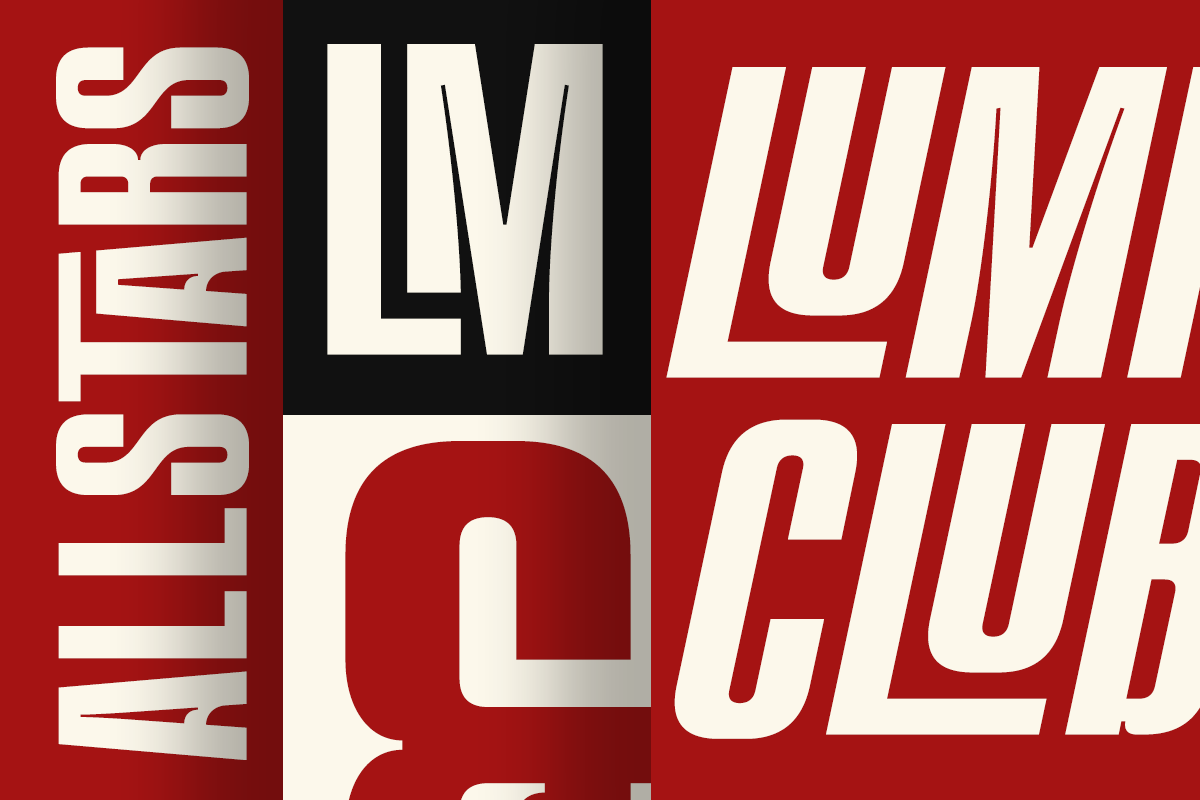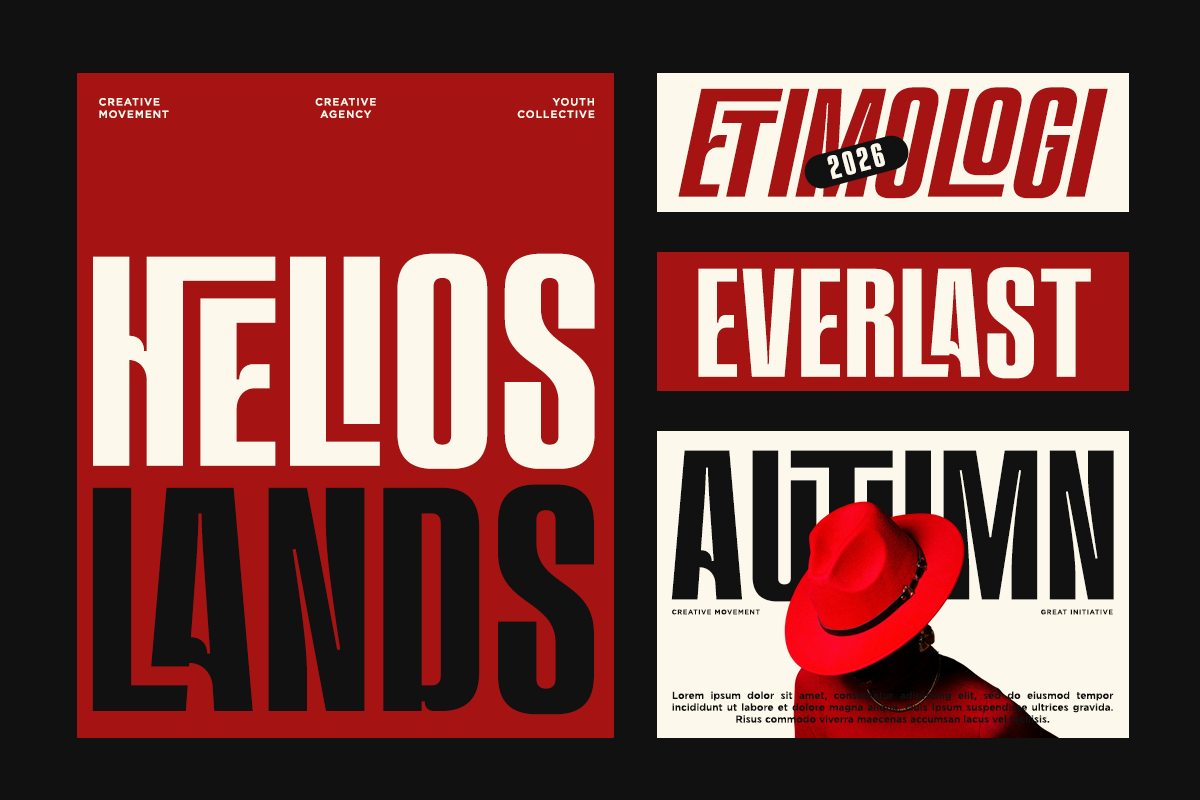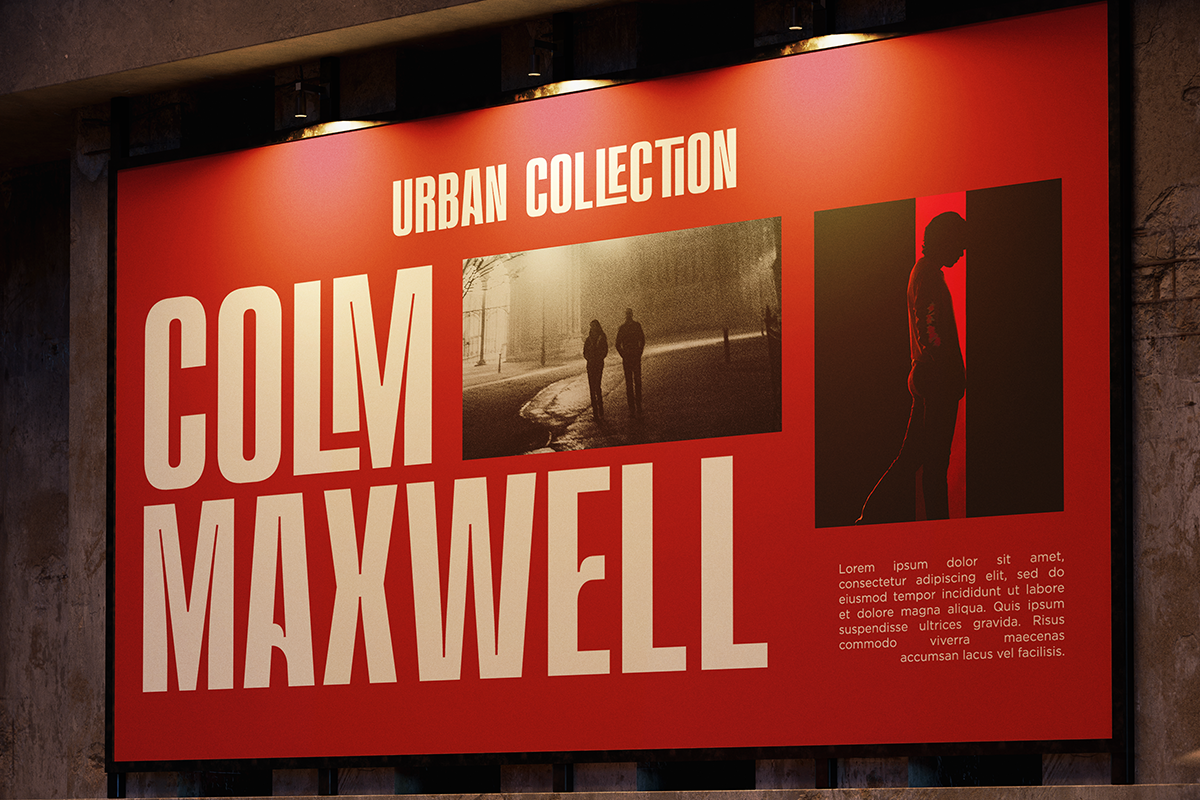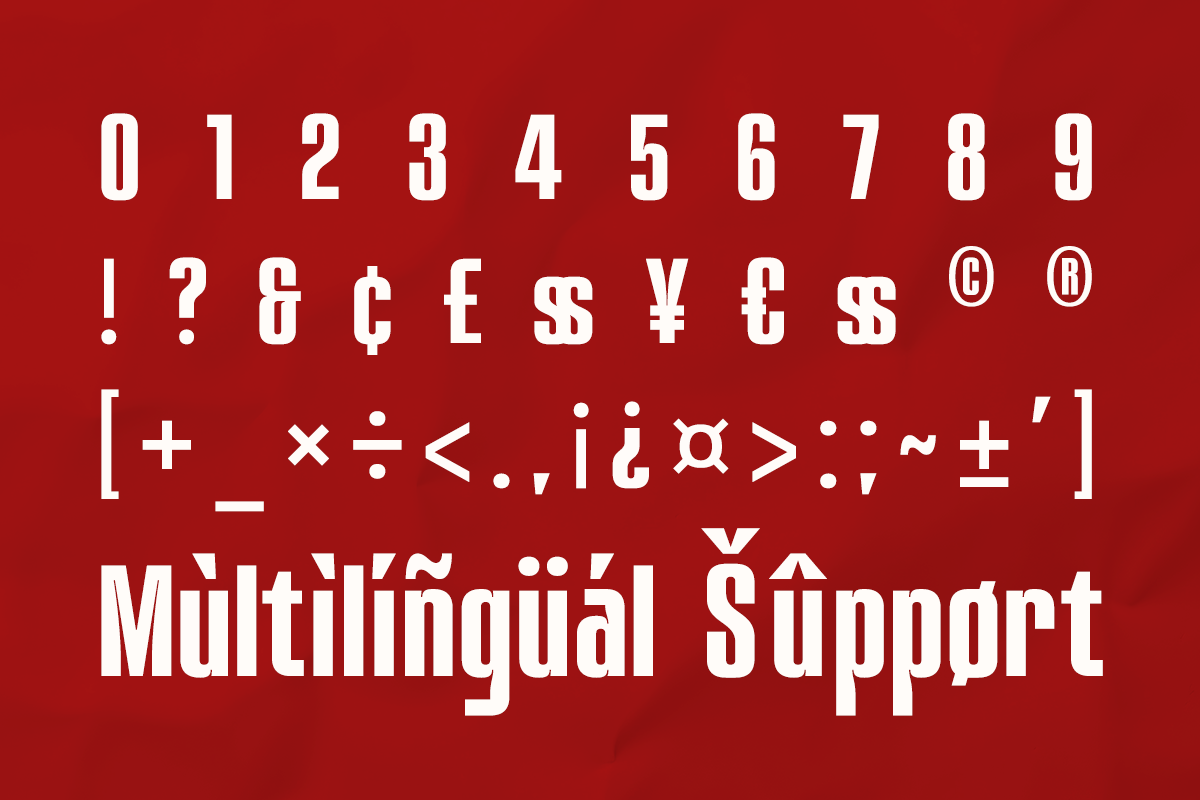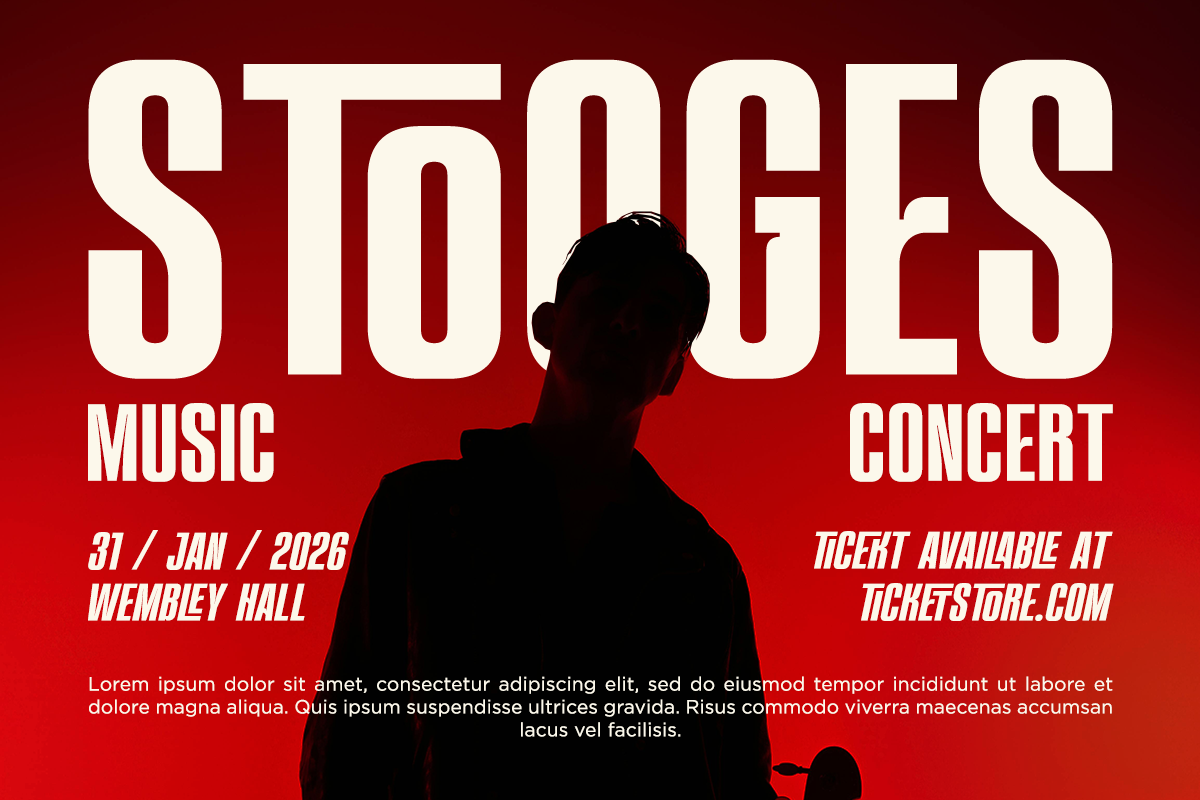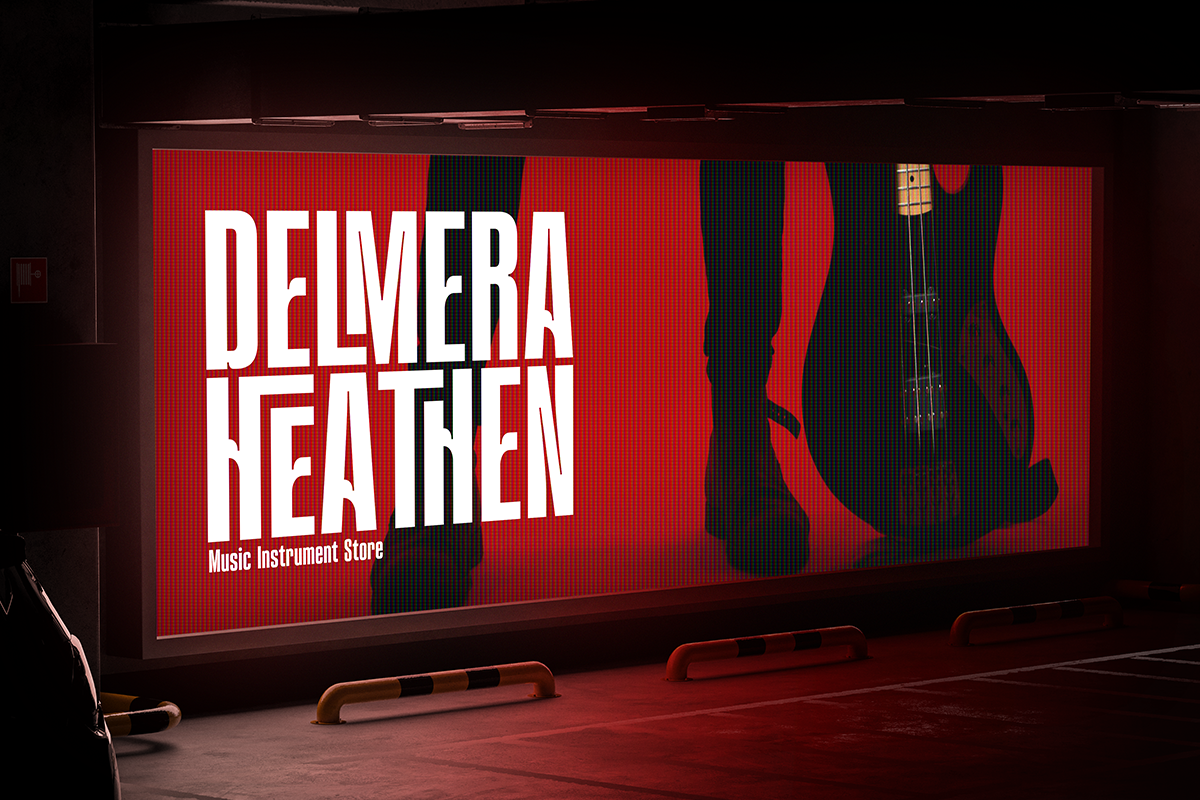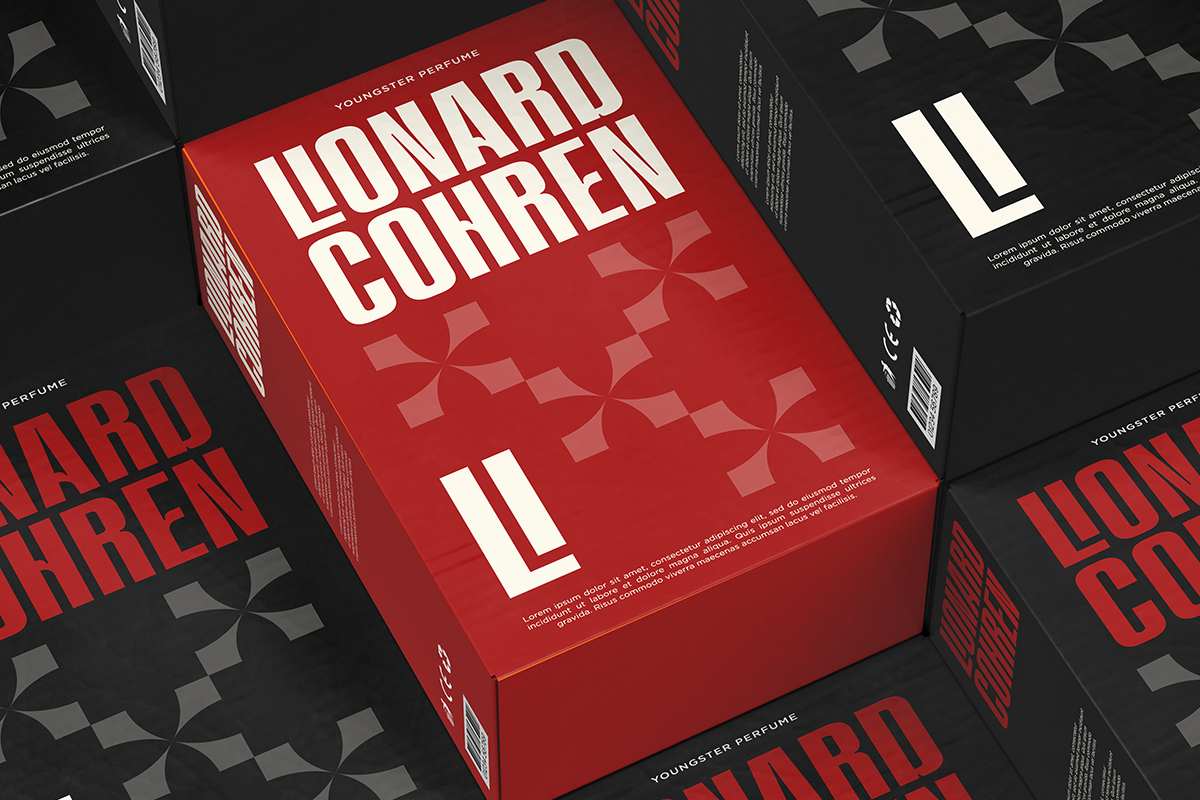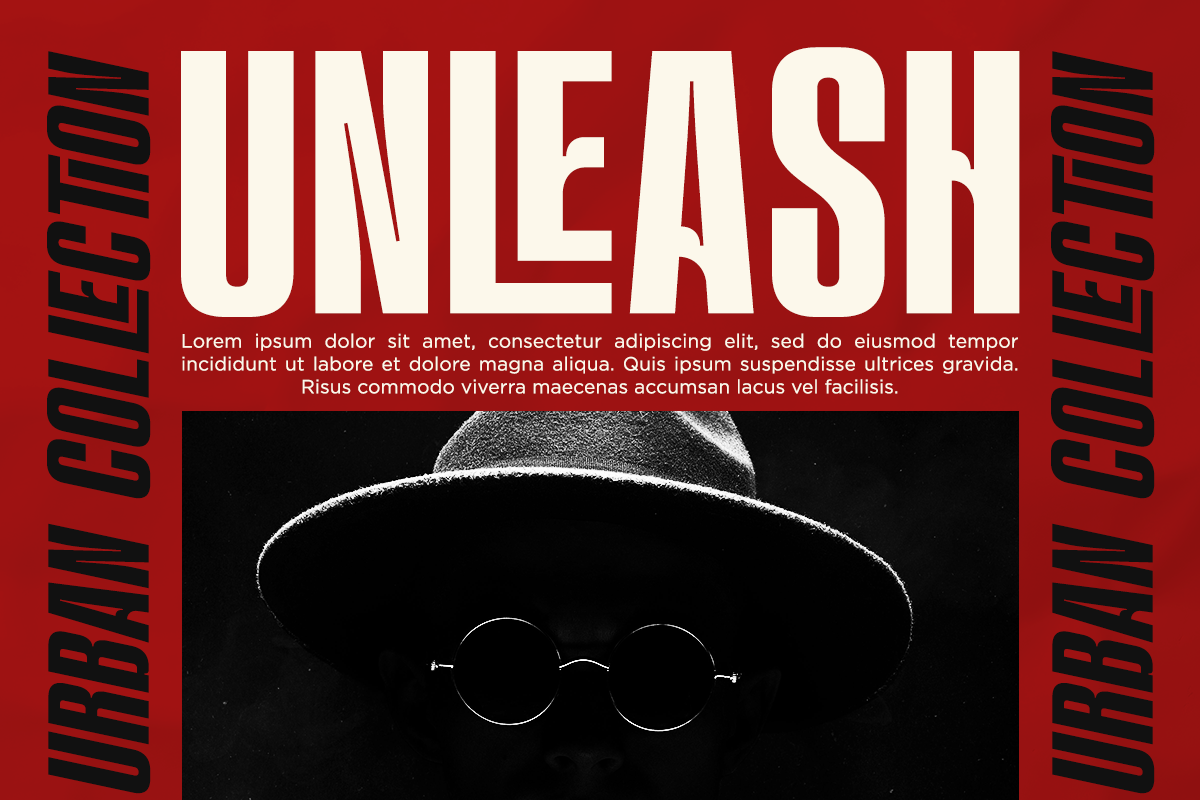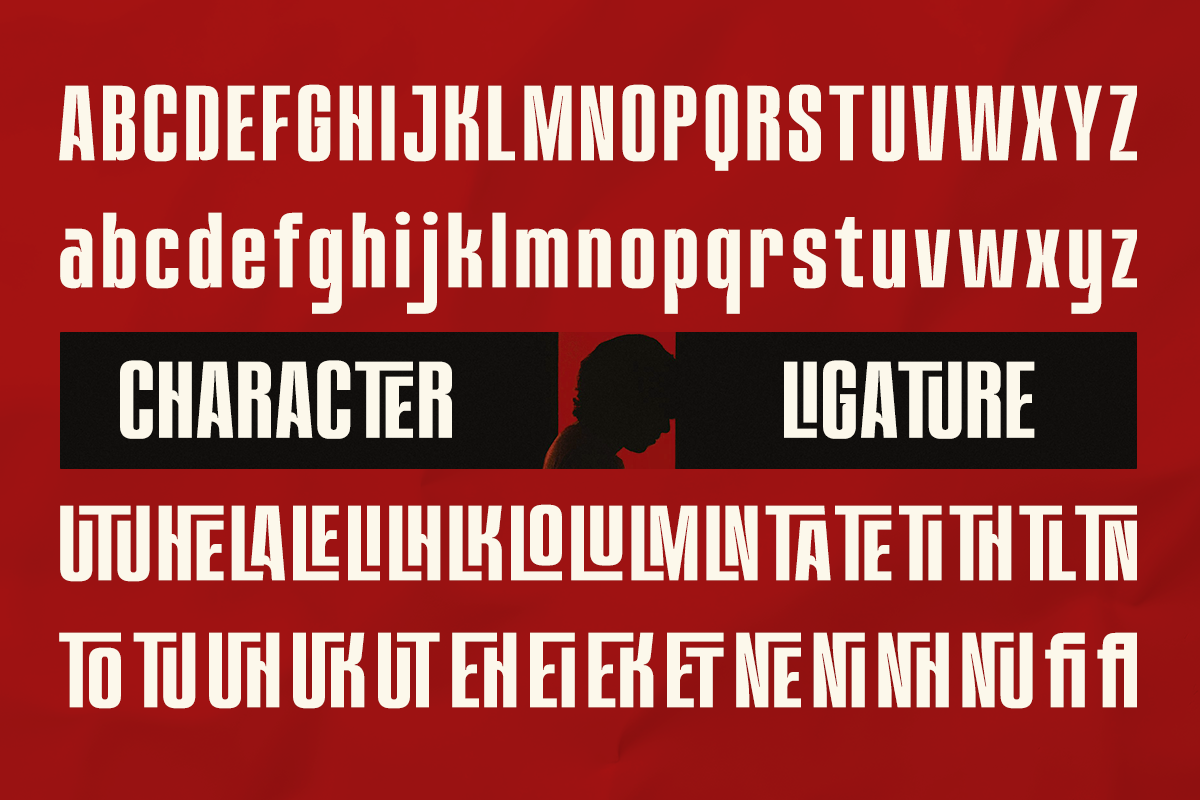
Cuturila – Bold Condensed Sans
Cuturila is a bold condensed display font crafted to deliver instant visual impact. Designed with tall proportions and strong vertical rhythm, this typeface commands attention at first glance, making it ideal for designs that need to stand out with confidence and clarity.
Its clean structure and solid weight ensure excellent legibility even at large sizes, while subtle details and balanced spacing keep the overall look modern and professional. Cuturila brings a powerful presence without sacrificing readability, making it a reliable choice for both striking headlines and bold typographic compositions.
Perfect for branding, posters, logos, packaging, editorials, and advertising, Cuturila is built for designers who want their message to feel strong, direct, and memorable. Whether used in print or digital projects, this font delivers a bold statement with refined precision.
- Stylish Ligature Set
- Symbol and Number